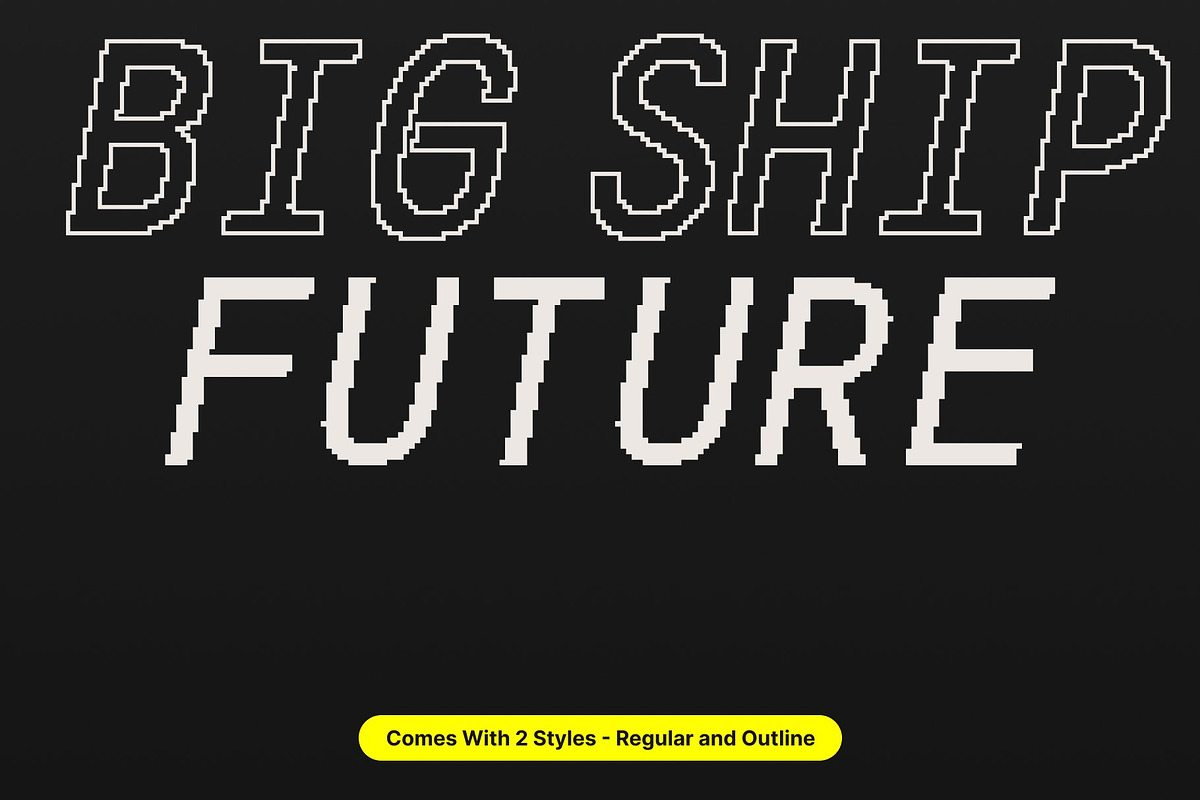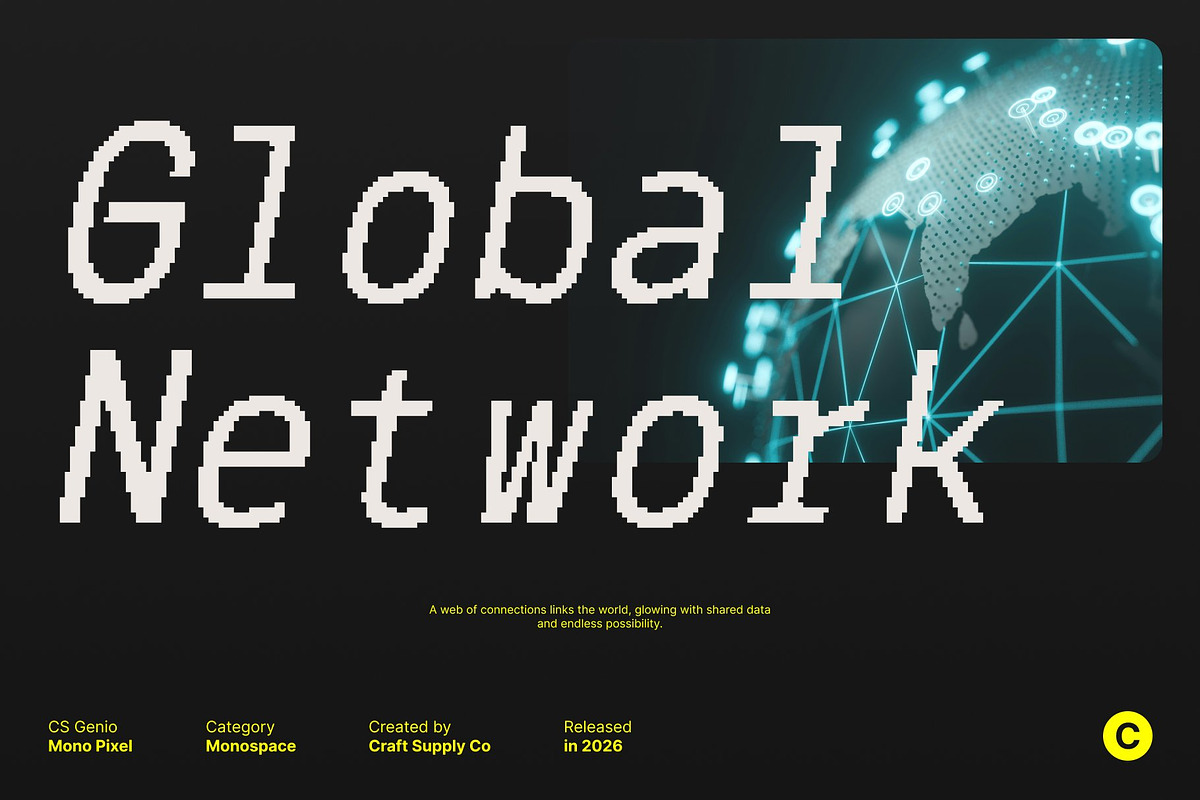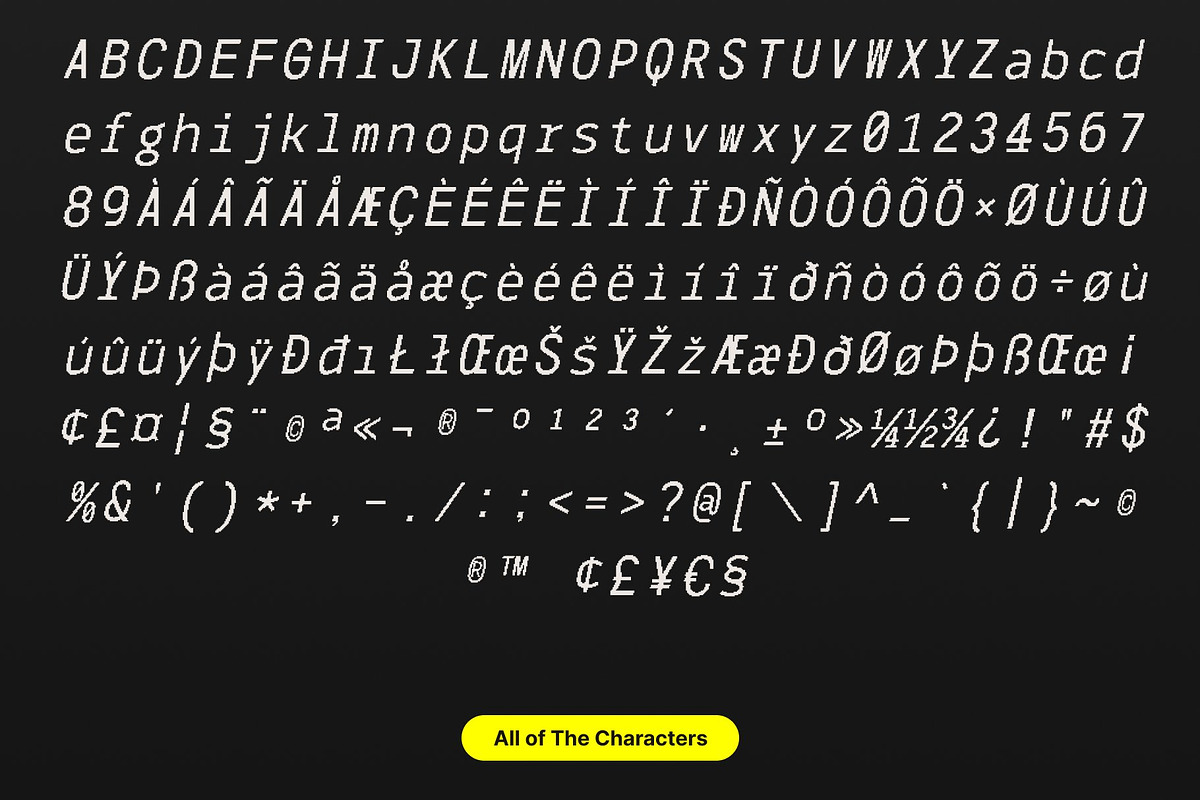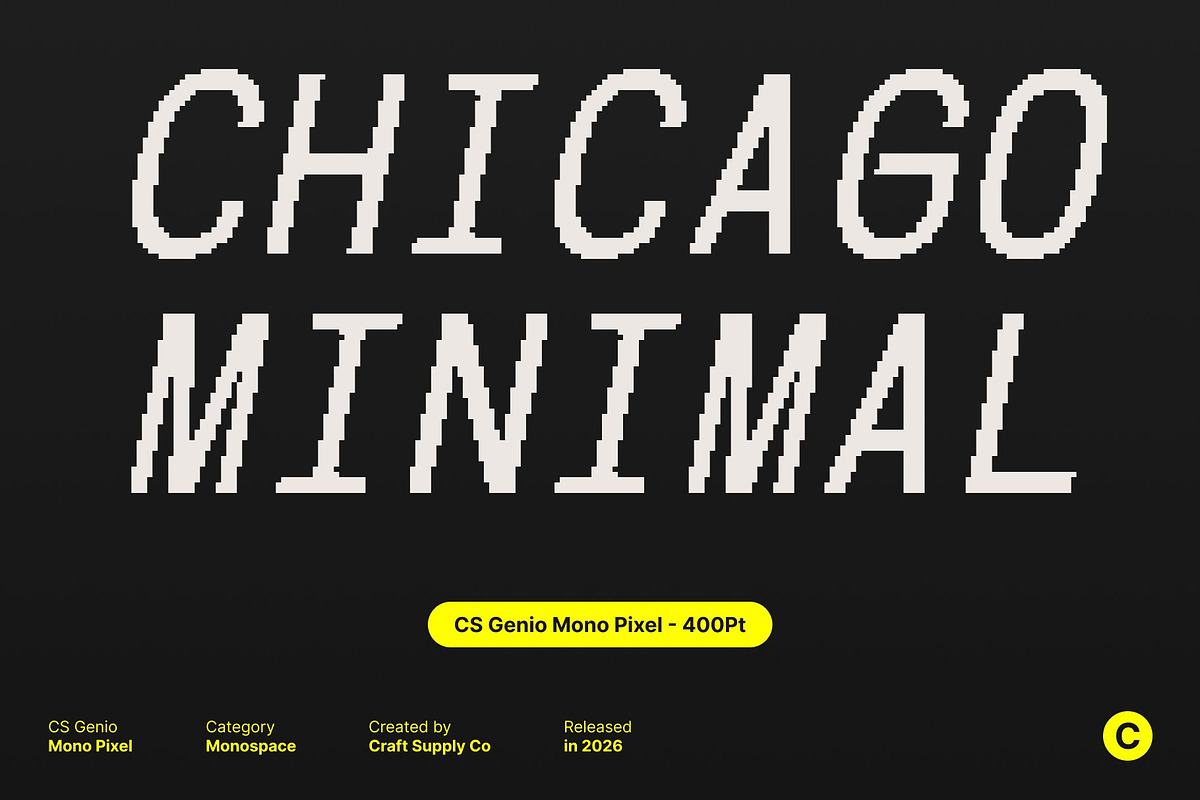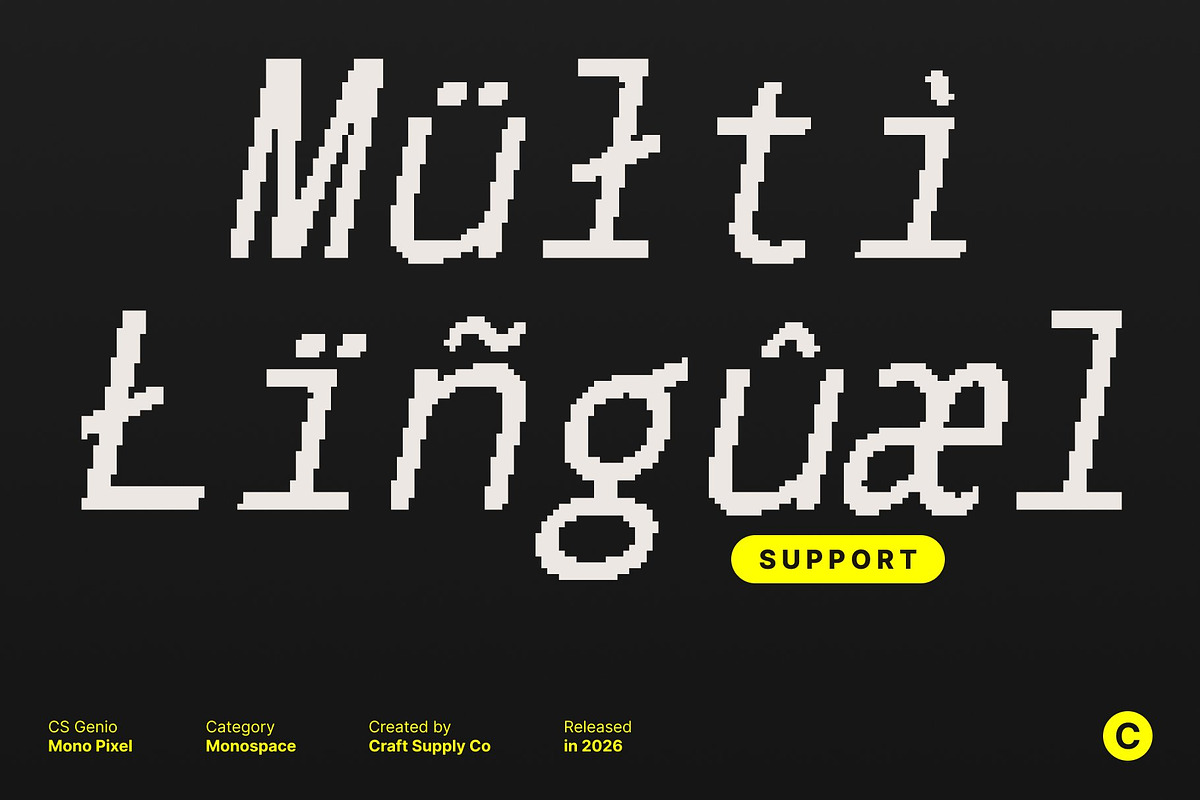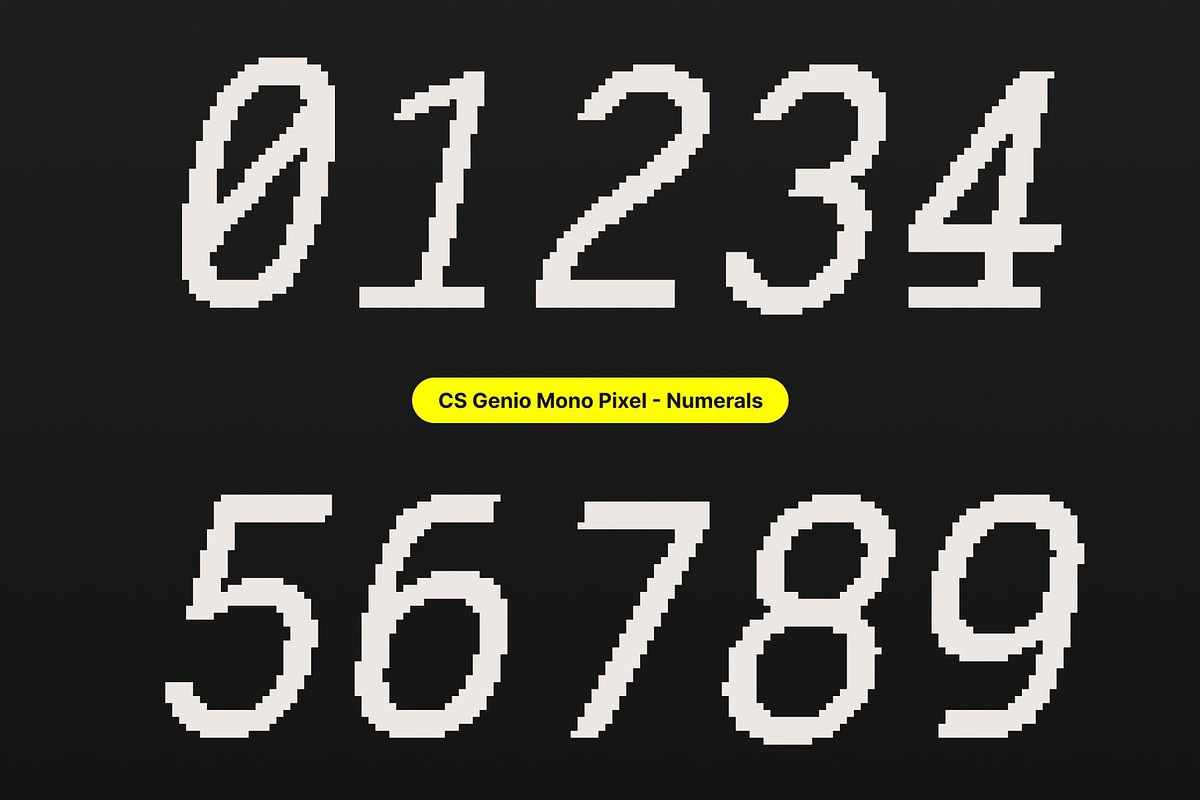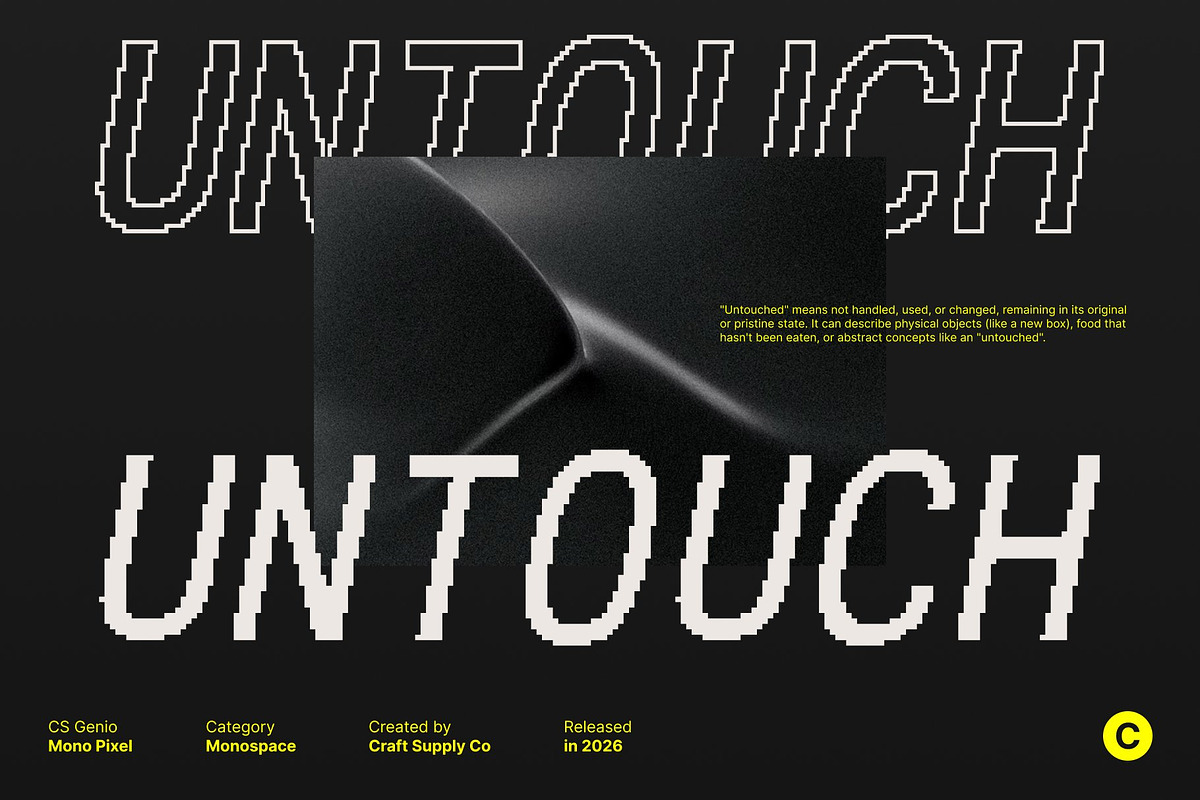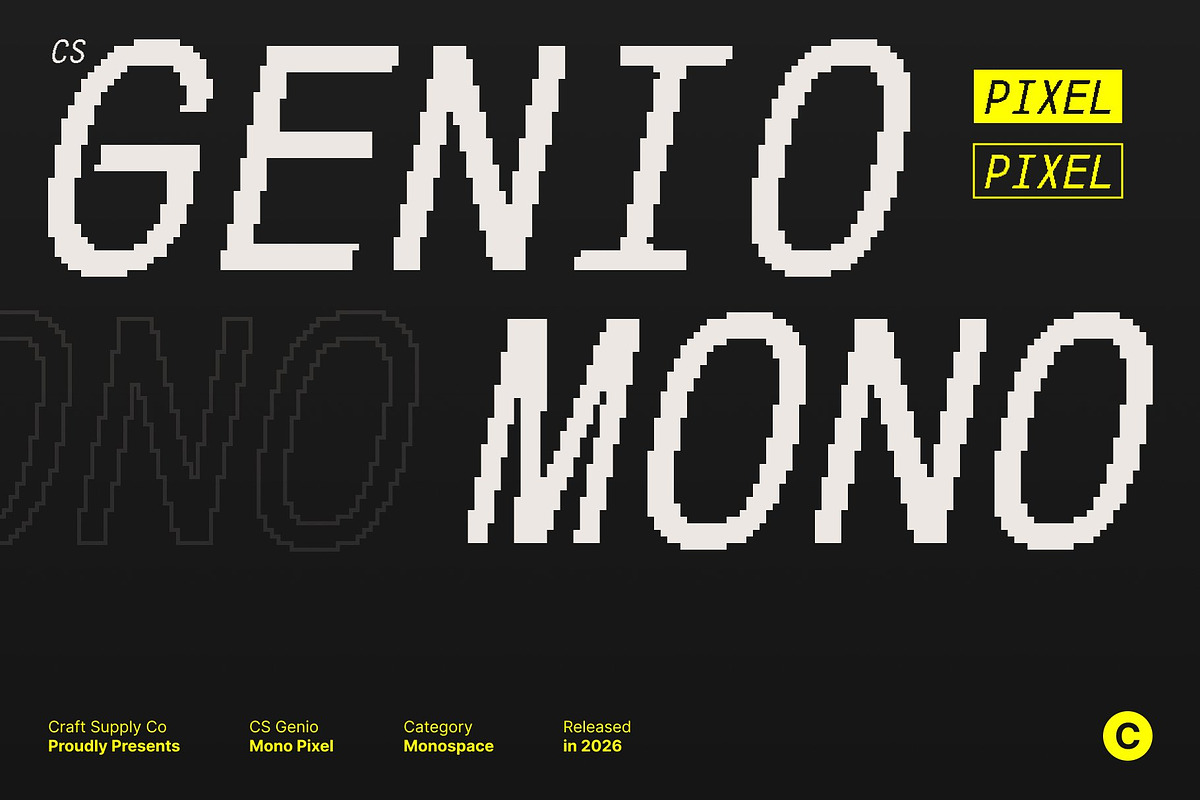
CS Genio Mono Pixel
CS Genio Mono Pixel – Monospaced Typeface with Digital Precision and Retro Clarity
Clean Monospaced Design with Pixel Character This is a monospaced sans serif typeface that emphasizes essential simplicity, structure, and clarity, enhanced with subtle pixel detailing. Its clean, uncomplicated forms ensure consistency and order, while the pixel-inspired accents introduce a digital tone that feels both modern and subtly retro.
Designed for Contemporary and Tech-Driven Applications Perfect for modern design environments, this font performs exceptionally well in responsive web design, UI/UX layouts, coding visuals, and minimal branding systems. The monospaced structure guarantees alignment and balance, making it ideal for technical, digital, and interface-based projects.
Exceptional Clarity at Any Size This font maintains excellent readability at both small and large scales. Whether used for body text, code displays, headlines, or graphic elements, each character remains clear and consistent. The pixel details reinforce a digital identity without compromising legibility.
Versatile for Modern, Retro, and Functional Design This font adapts seamlessly across digital interfaces and printed materials, delivering a professional yet character-rich appearance. Its combination of monospaced precision, minimalist structure, and pixel styling makes this font a reliable choice for designers seeking clarity, functionality, and a refined old-digital aesthetic.